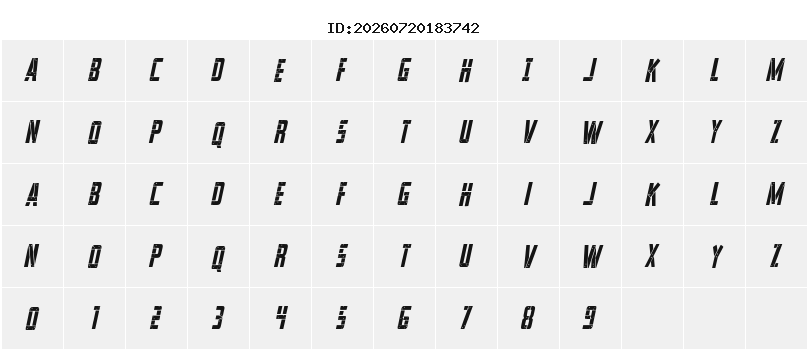
Frank-n-Plank Condensed Italic Preview
• Font Name: Frank-n-Plank Condensed Italic
• Font Style: Condensed Italic
• Full Font Name: Frank-n-Plank Condensed Italic
About Frank-n-Plank Condensed Italic.ttf
Frank-n-Plank Condensed Italic.ttf is a modern, elegant sans-serif font designed for ultimate readability and visual harmony. Perfect for branding, headlines, web design, and print materials.